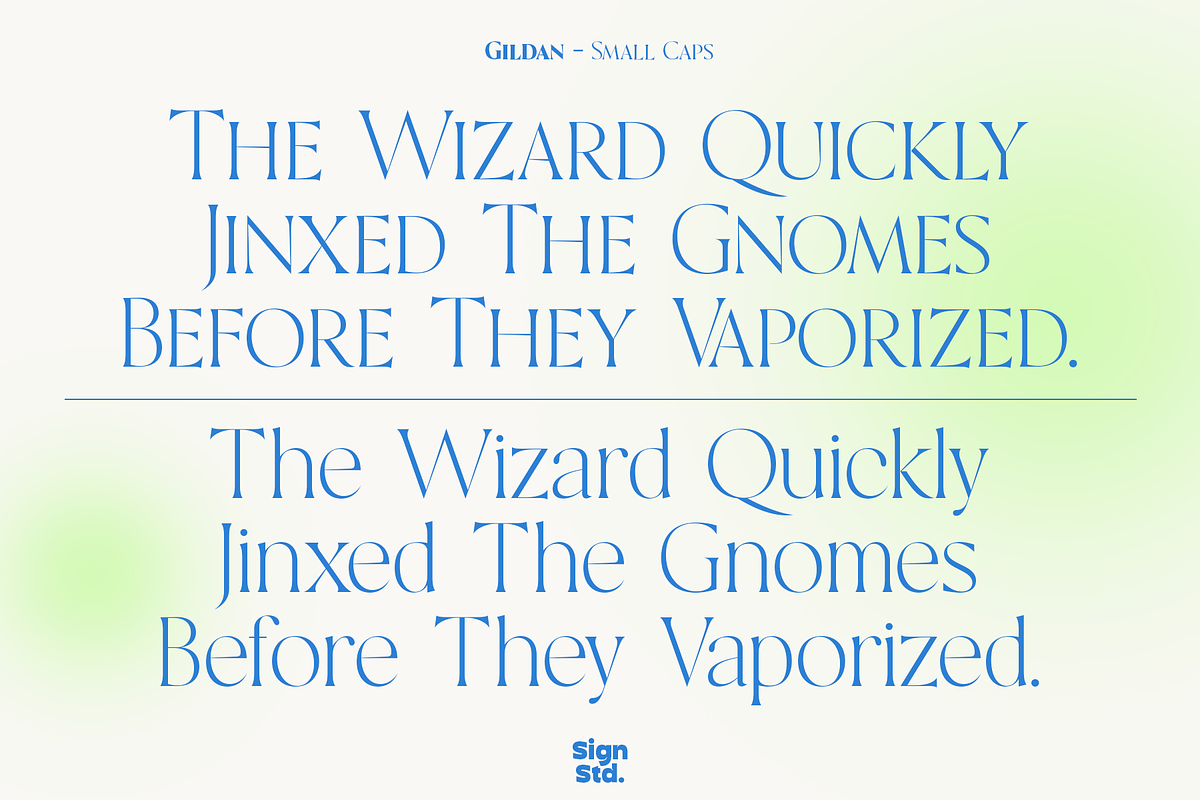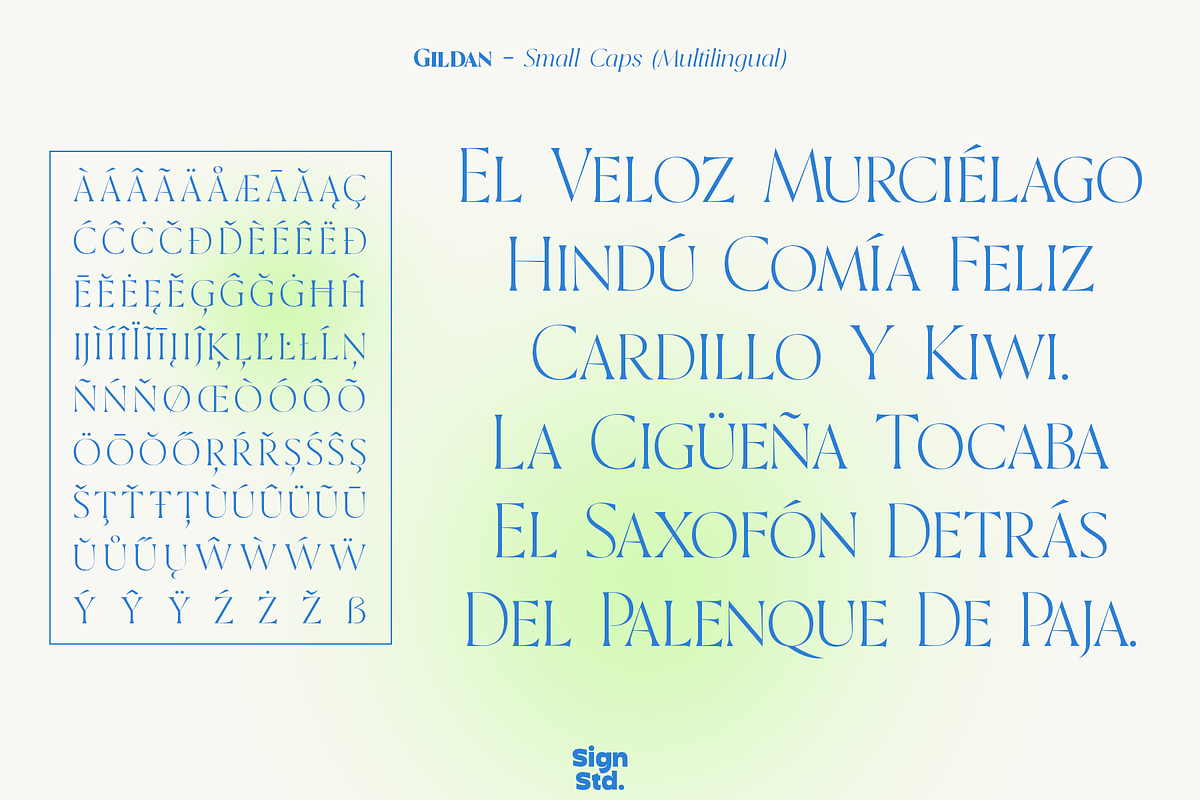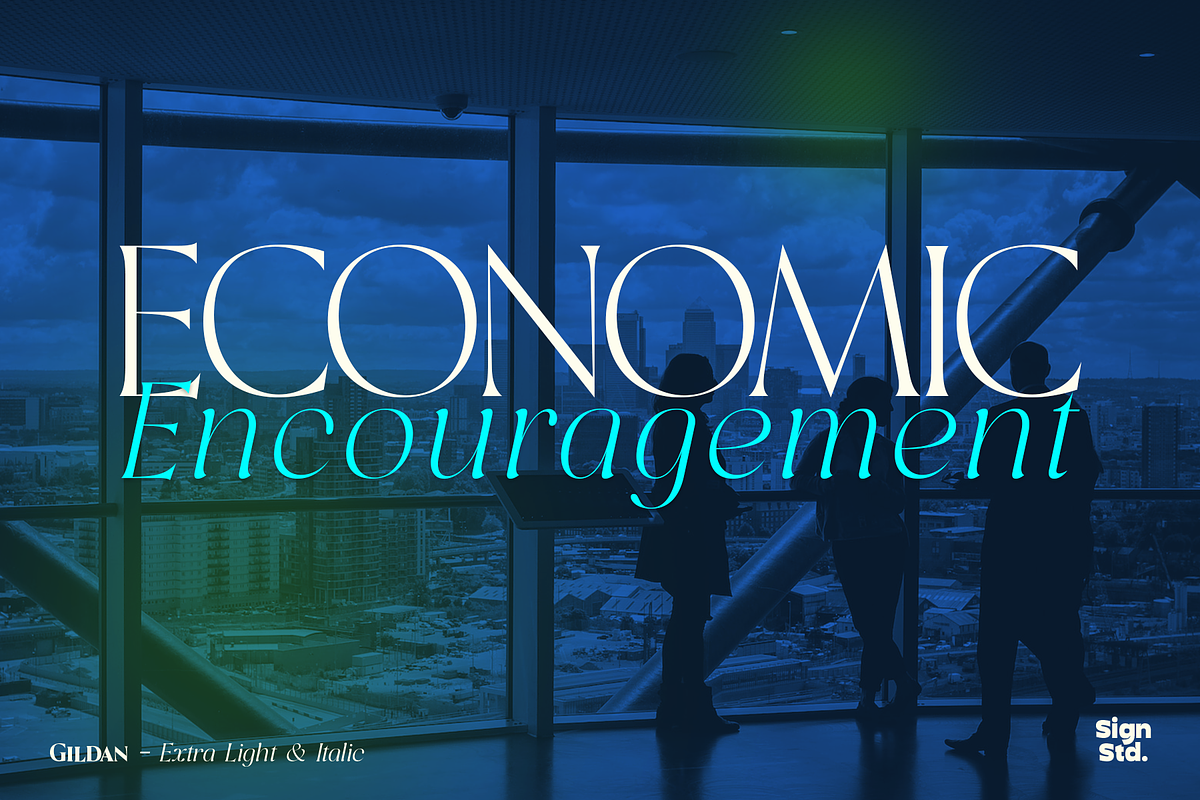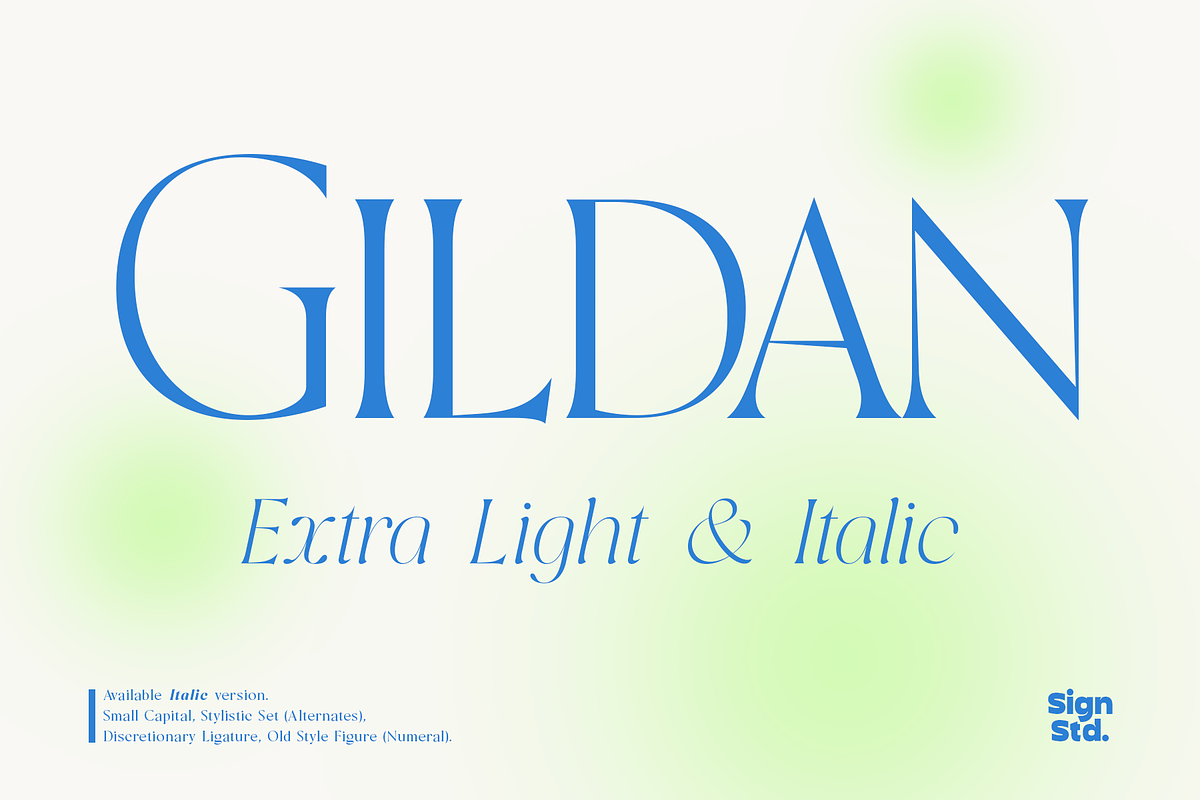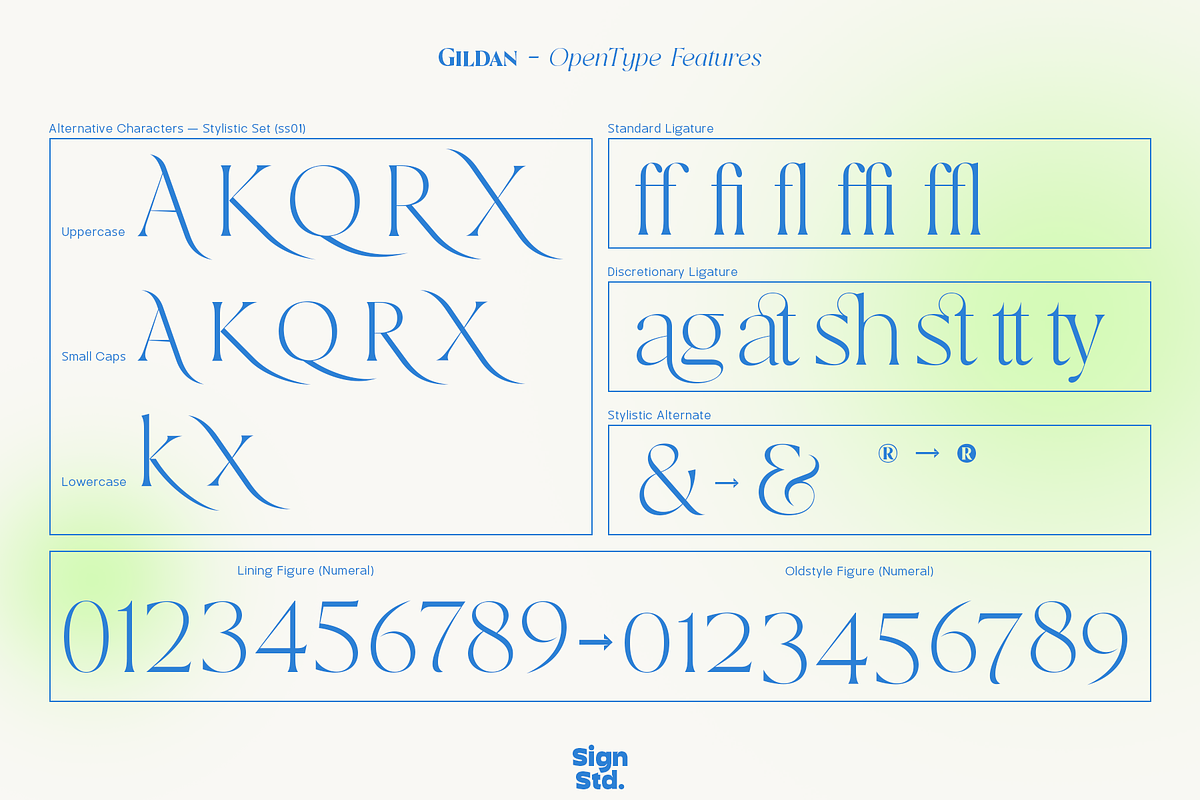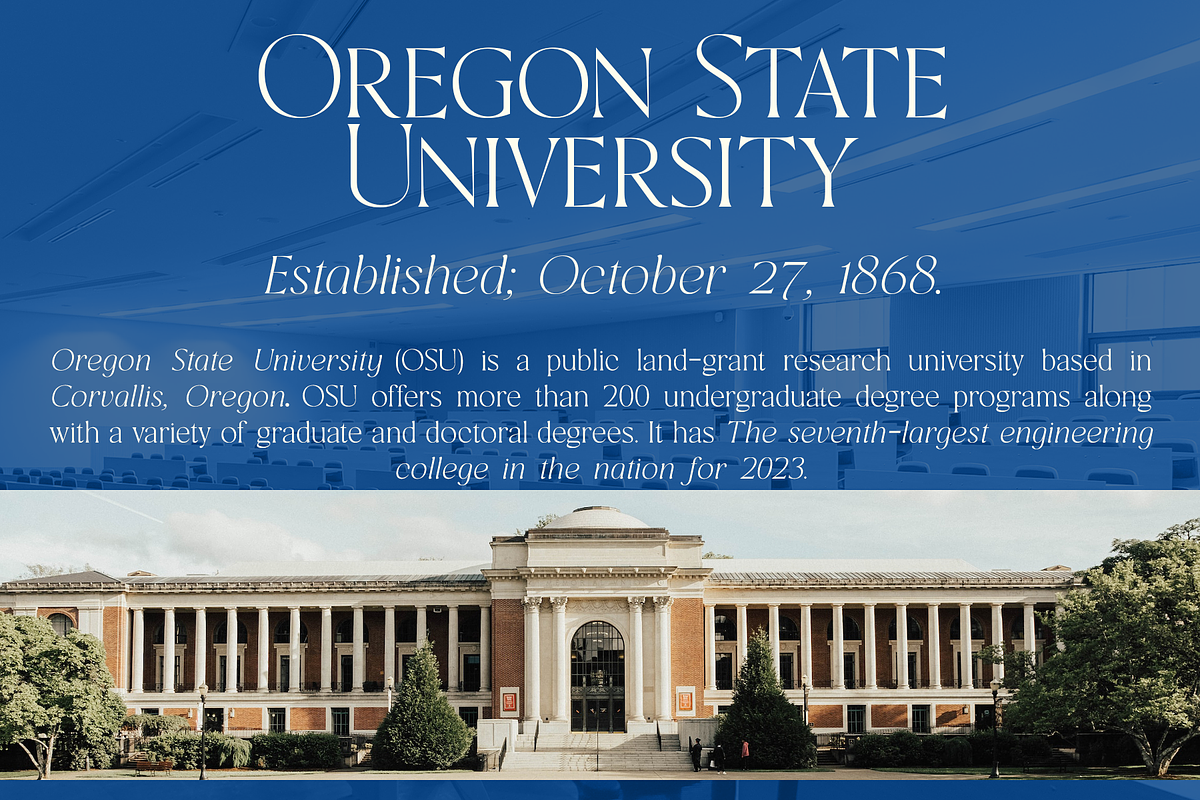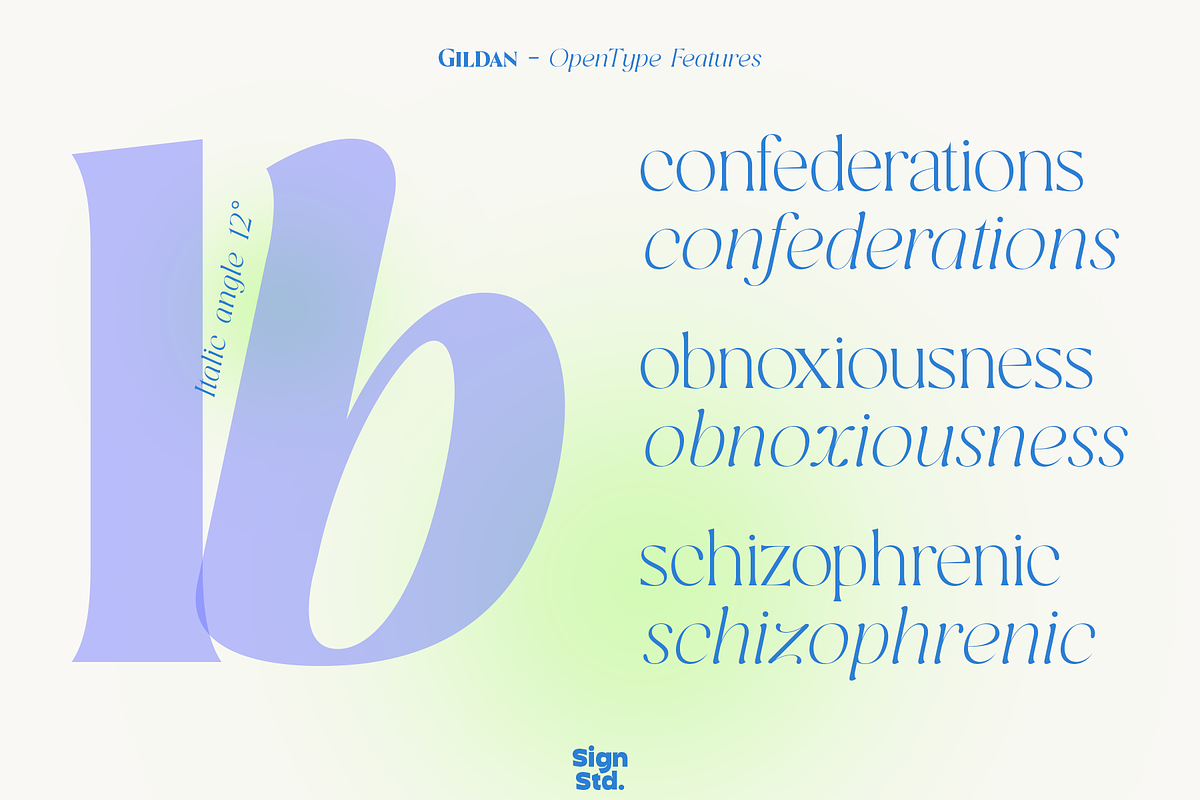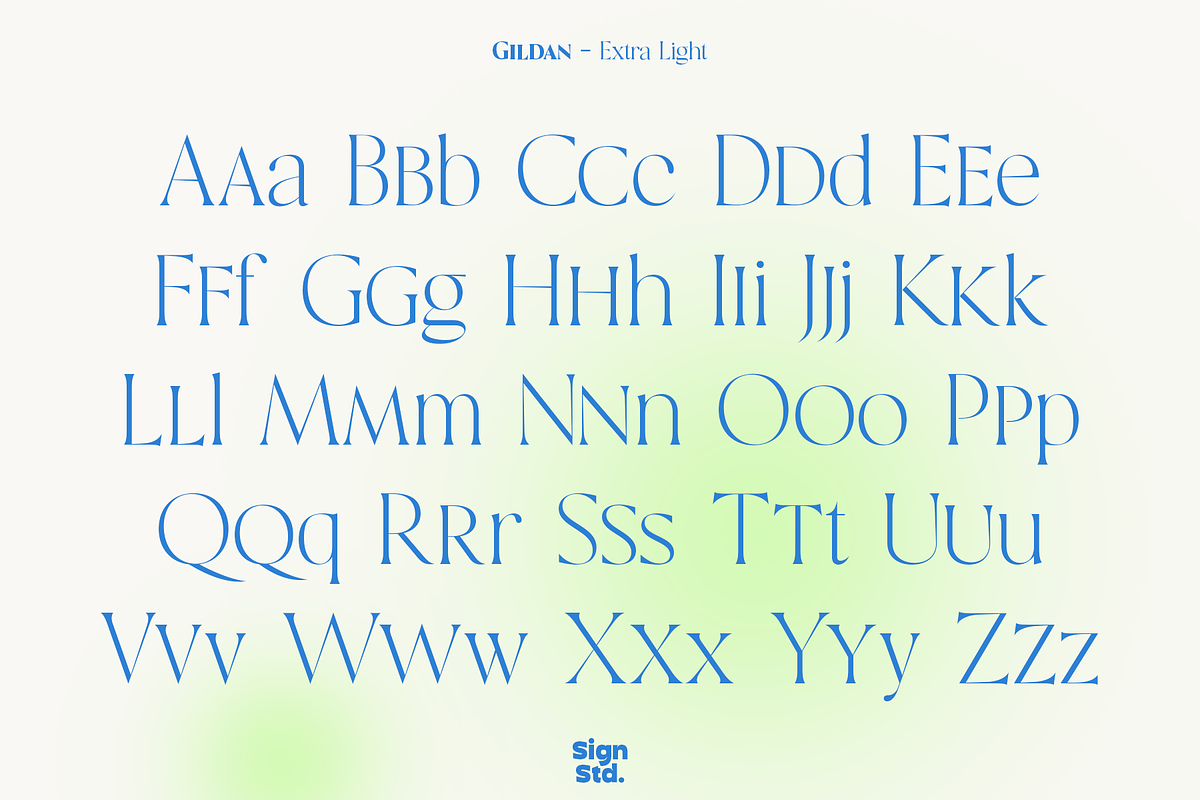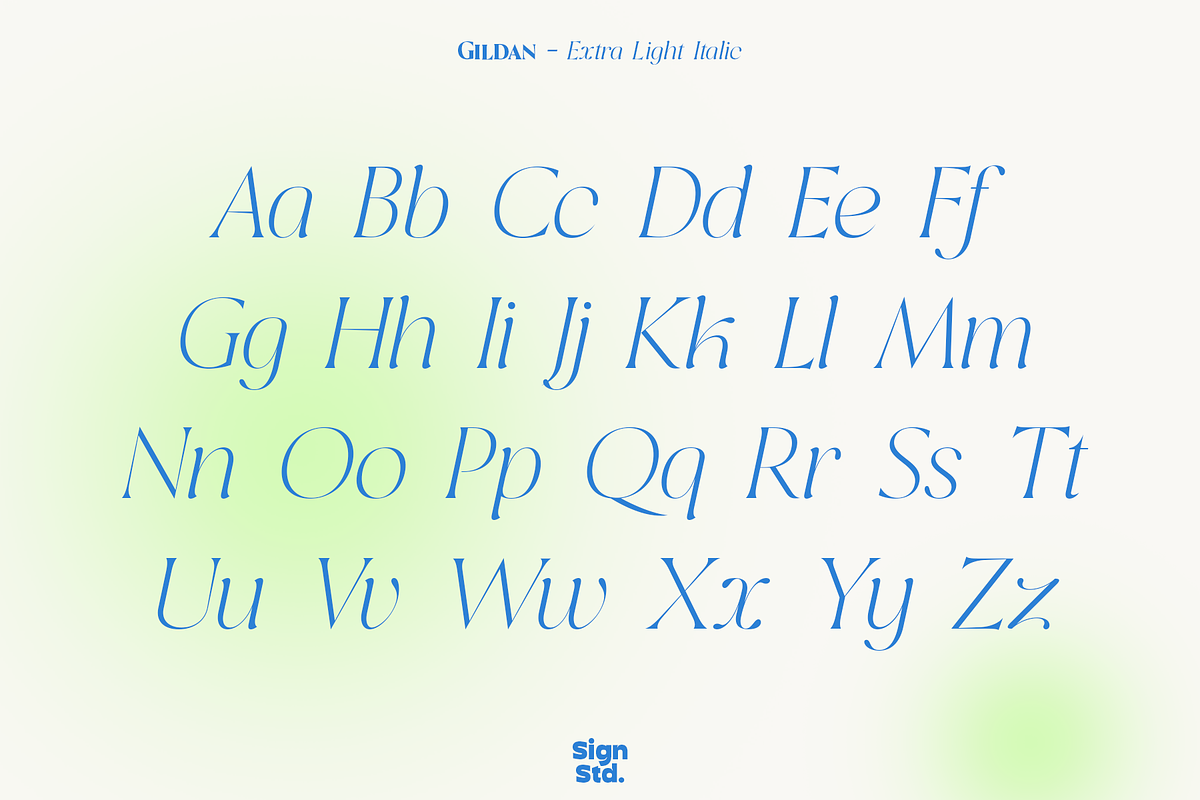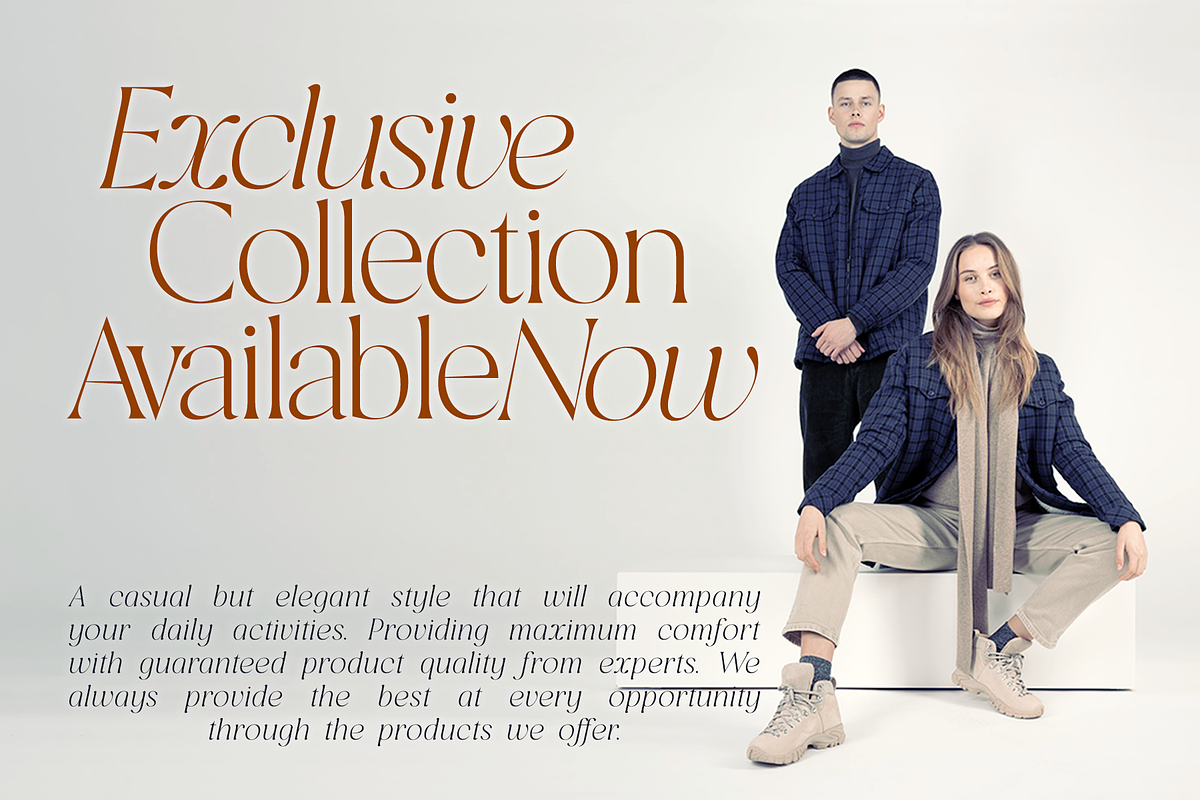
Gildan - Extra Light with Italic
Gildan inspired by a charming classic style. Equipped with several OpenType features (plain version); Discretionary Ligatures, Small Caps, Stylistic Sets, Oldstyle Figures. We made the italic version simpler but with controlled thickness on each side. Everything is made with the aim of complementing each other and supporting the design well.